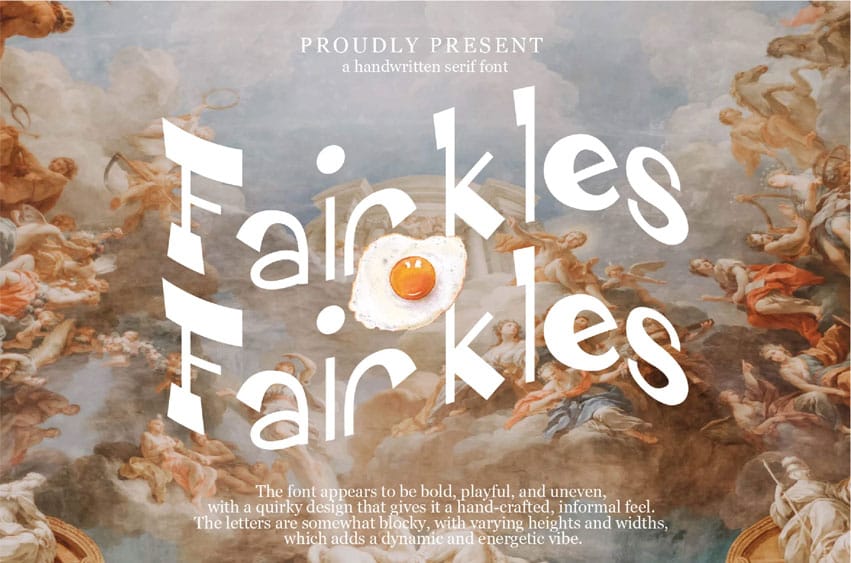
Fairkles Font is a bold, quirky handwritten serif font designed to bring energy and personality to your projects.
Its uneven structure, with varying heights and widths, creates a dynamic and informal feel, making it ideal for designs that want to stand out.